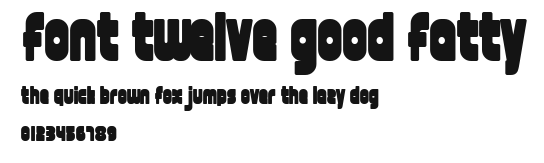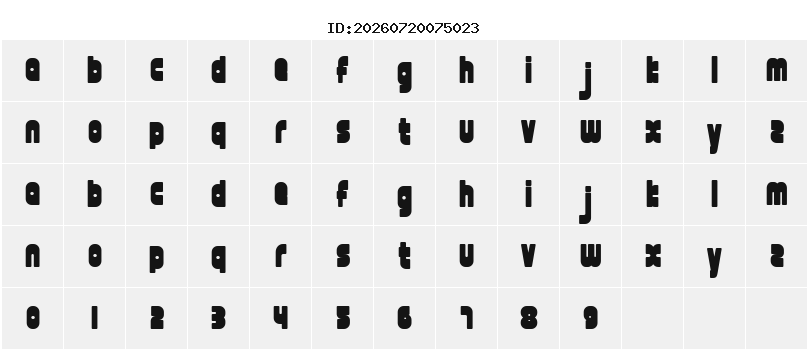
• Font Name: font twelve good fatty
• Full Font Name: font twelve good fatty
About font twelve good fatty.ttf
font twelve good fatty.ttf is a modern, elegant sans-serif font designed for ultimate readability and visual harmony. Perfect for branding, headlines, web design, and print materials.